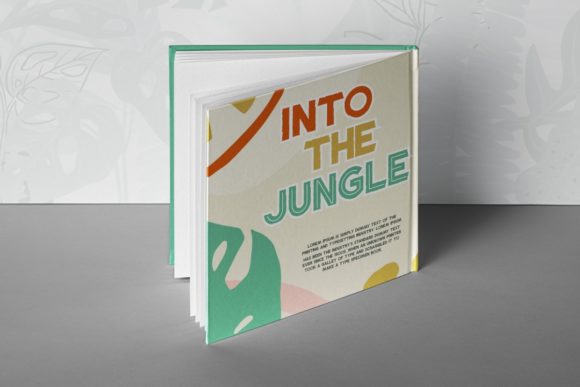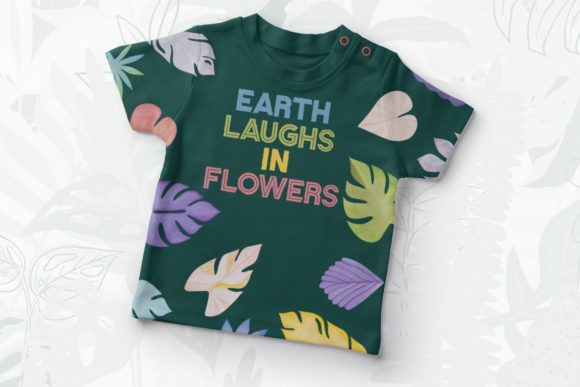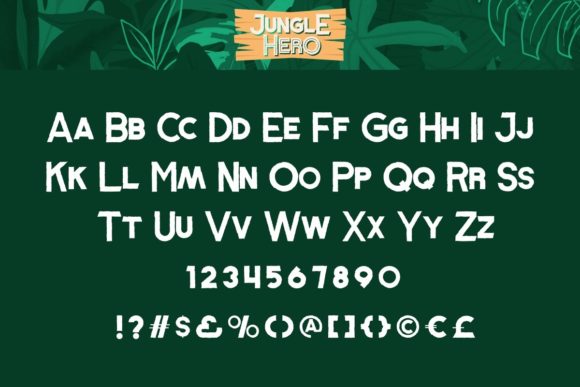
Introduction to Jungle Hero Font
Have you ever found yourself browsing through design resources, searching for the perfect font to bring your creative project to life? You know, that moment when you stumble upon a quirky display font that screams “fun” and “playful”? That’s exactly what happened to many designers when they discovered the Jungle Hero Font. This charming font has been making waves in the design community, and for good reason – its unique vibes are perfect for bringing a smile to your audience’s face.
| 📌 Product Name | Jungle Hero Font |
| 👤 Author | NoahType |
With its high-quality design and transparent background, the Jungle Hero Font is a valuable resource for any designer looking to add a touch of whimsy to their next project. Whether you’re working on children’s products, toys, or movies, this font is sure to bring a sense of energy and excitement to your design.
Key Features of Jungle Hero Font
- Unique, hand-drawn design with a bold and adventurous feel, perfect for creative projects.
- Supports a wide range of languages, making it a versatile design resource for global creative projects.
- Perfect for designers working on a variety of projects, from logos and branding to web design and editorial content.
Honest Review: Jungle Hero Font
I recently had the opportunity to try out the Jungle Hero Font and I must say, it’s been a game-changer for my creative projects. This font is perfect for anyone looking to add a touch of adventure and playfulness to their designs.
- Transparent background makes it easy to overlay on any image or design
- Unique and fun design that’s sure to grab attention
- Not ideal for formal or professional designs, as it’s quite playful and bold
- May not be suitable for designs with a lot of text, as it can be quite eye-catching and distracting
Overall, I’m really impressed with the Jungle Hero Font and would highly recommend it to anyone looking for a fun and unique design resource.
Getting the Most Out of Jungle Hero Font
To get the most out of the Jungle Hero Font, use it in combination with other design elements to create a cohesive look. Experiment with different font sizes, colors, and arrangements to achieve the perfect balance. Don’t be afraid to push the limits and try new things – the Jungle Hero Font is designed to inspire creativity.
The Jungle Hero Font is perfect for a wide range of creative projects, including:
- Adventure-themed designs
- Travel and tourism projects
- Outdoor and sports-related designs
- Graphic novels and comics
Can I customize the Jungle Hero Font to fit my design needs?
The Jungle Hero Font is a high-quality design resource that can be easily customized using font editing software. You can adjust the font’s size, color, and style to fit your creative project’s requirements. Additionally, the font’s transparent background makes it easy to layer and combine with other design elements.